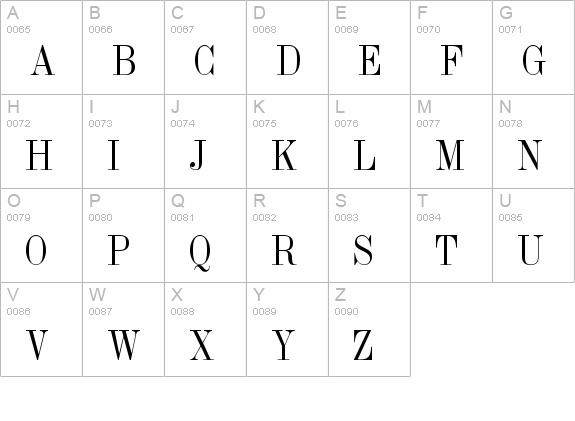
Introducing OPTITorry font, a versatile and modern typeface that brings a touch of elegance to any design project. With its clean lines and stylish curves, OPTITorry is perfect for creating eye-catching headlines, logo designs, posters, and more. This font exudes sophistication and class, making it ideal for both digital and print applications. But the best part? OPTITorry is completely free to download at FontsMarket.com! Yes, you read that right - this premium quality font can be yours at no cost. Simply head over to FontsMarket.com, grab your copy, and start using OPTITorry to elevate your designs to the next level. Don't miss out on this fantastic opportunity to enhance your creative projects with the beauty and elegance of OPTITorry font. Download it now and let your creativity shine!